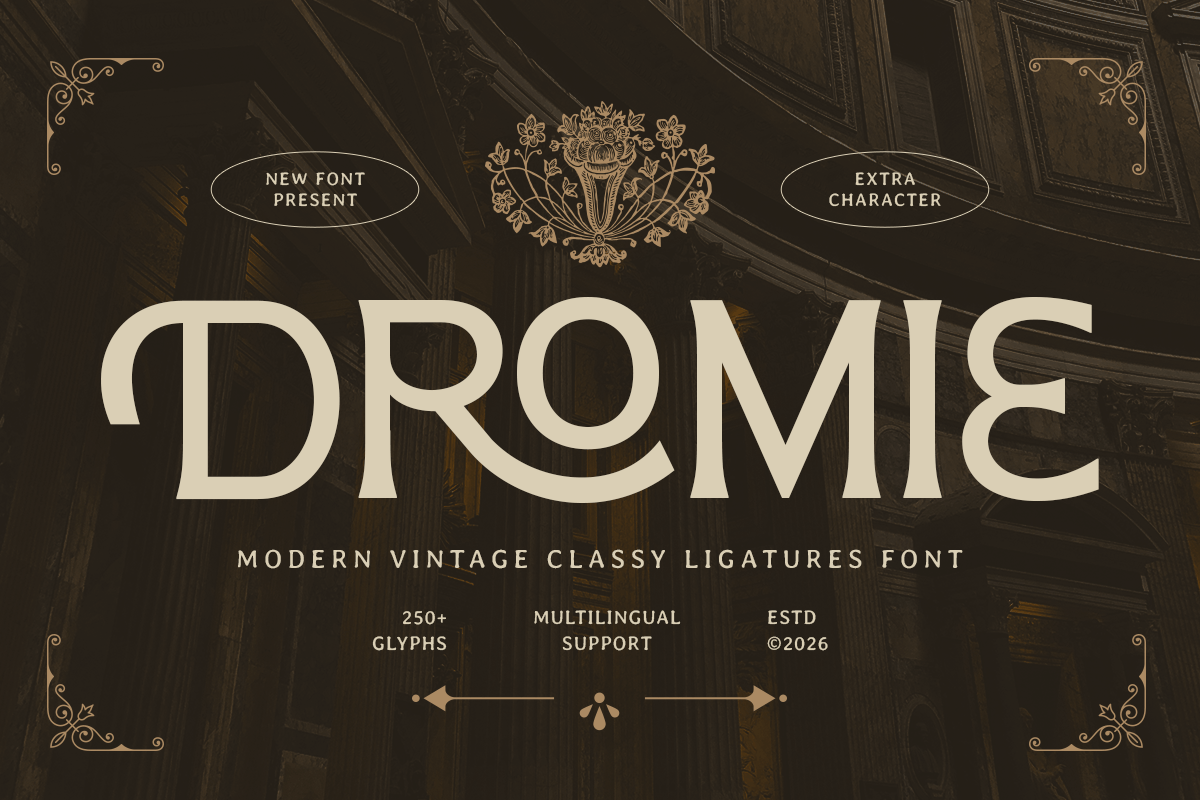
Dromie
-Modern Vintage Classy Ligatures FontDromie - Modern Vintage Classy Ligatures Font
DROMIE is a modern vintage classy ligatures font designed to combine nostalgic charm with refined contemporary elegance. With stylish ligature details, balanced proportions, and a polished vintage-inspired rhythm, this typeface creates a premium visual tone that feels classy, expressive, and instantly memorable.
Built for branding-forward typography, DROMIE works beautifully across logos, wordmarks, editorial layouts, magazine covers, website headers, packaging, labels, invitations, posters, signage, and social media visuals. Its ligature features add a custom-crafted touch that makes every composition feel more distinctive, while the vintage character brings warmth and timeless personality across both digital and print design.
Whether you’re building a heritage-inspired brand, designing boutique packaging, creating retro editorial visuals, or crafting elegant promotional materials, DROMIE provides a classy ligature foundation that makes your typography feel sophisticated, nostalgic, and full of premium charm.
Inspiration Behind DROMIE
DROMIE is inspired by vintage branding aesthetics and modern editorial typography—where nostalgic character, elegant detail, and custom ligature flow create a timeless visual signature. The design focuses on classy rhythm and refined retro personality to support standout branding with a warm, stylish, and memorable presence.
DROMIE Font Features:
Modern vintage letterforms with classy ligature details
Perfect for logos, wordmarks, and elegant branding systems
Distinctive ligatures for a custom, premium visual signature
Strong readability for editorials, packaging, and headline design
Vintage logos, retro wordmarks, and boutique brand identity systems
Editorial layouts, magazine covers, and classy headline typography
Packaging, labels, invitations, and nostalgic promotional design
Posters, signage, website headers, and stylish campaign visuals
Social media graphics, presentations, and premium marketing assets
Bring timeless character to your branding with DROMIE—a modern vintage ligatures font made for classy, elegant visual impact. ✨